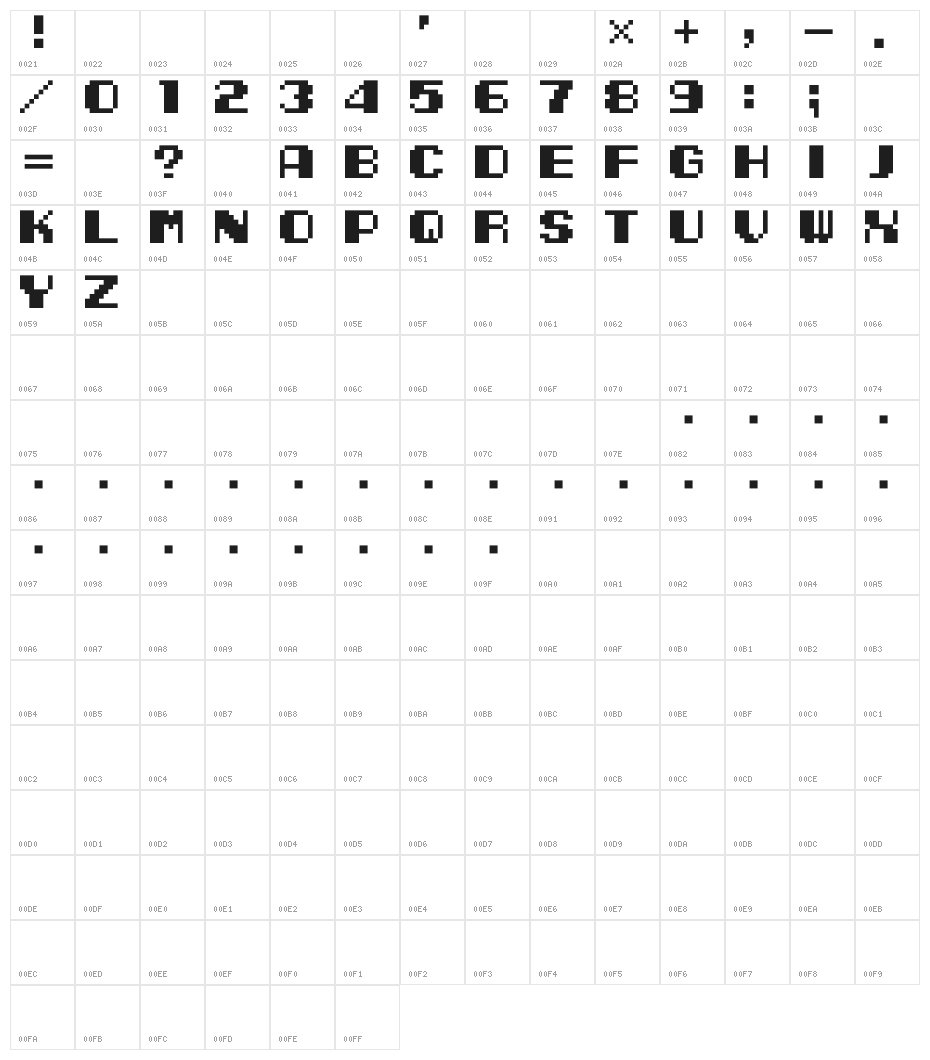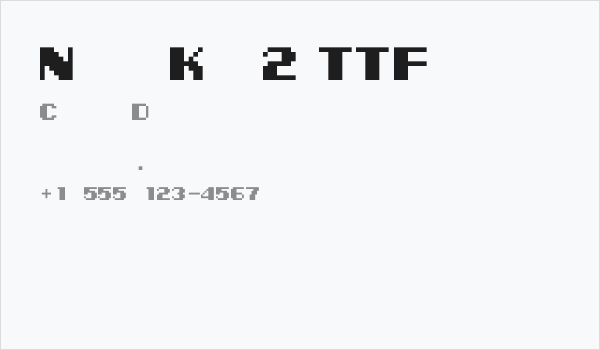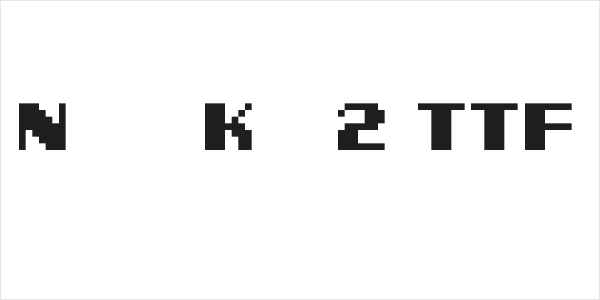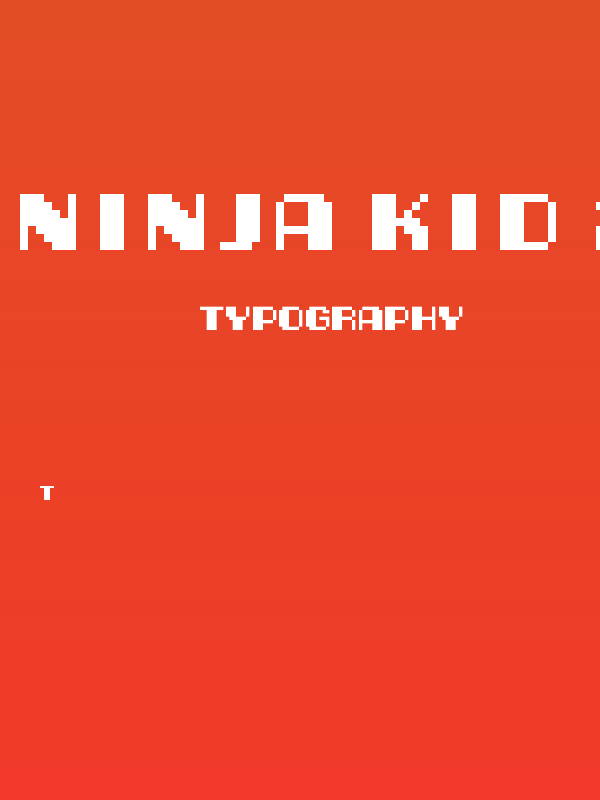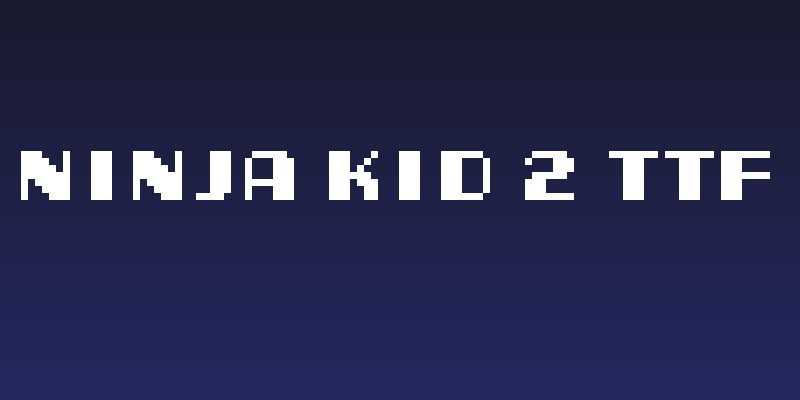
Ninja Kid 2 TTF Font
Ninja Kid 2 TTF Description
This font features a bold, pixelated design reminiscent of classic arcade games. Each character is constructed with a blocky, grid-like structure, giving it a retro, digital appearance. The uppercase letters are uniform in height and width, creating a cohesive and balanced look. The numerals and special characters maintain the same pixelated style, ensuring consistency across all glyphs. This font's distinct style is perfect for projects that aim to evoke nostalgia or a vintage gaming aesthetic.
Overall StyleVintage
Proposed ProjectsIdeal for video game design, retro-themed posters, digital art, and nostalgic branding projects.